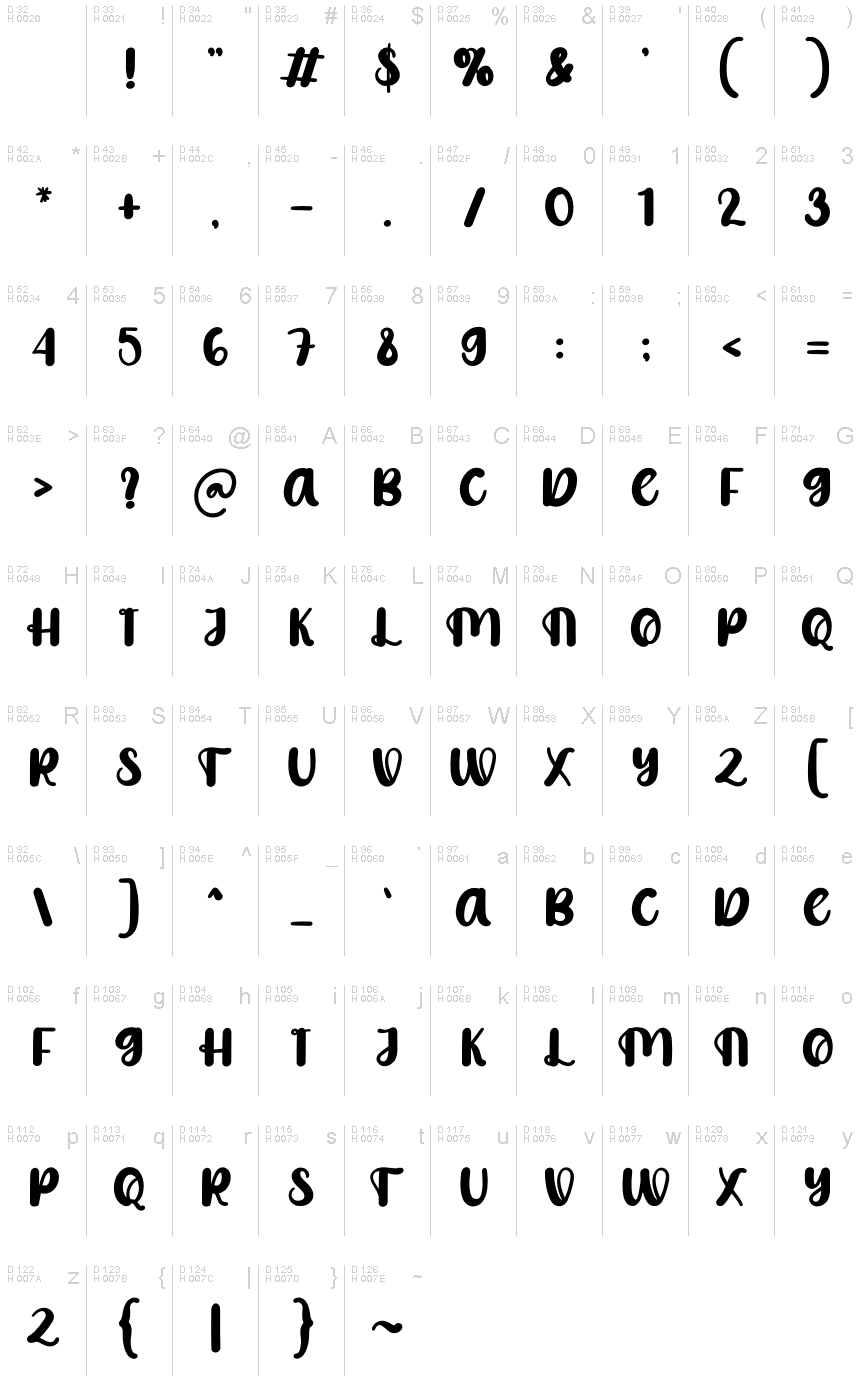
House Milk
House Milk is a captivating handwritten display font that exudes a delightful sense of sweetness and playfulness. Crafted by the talented designer Andi Moz, this bold and smooth brush script is a true delight for the eyes. The font's brushy strokes and rounded, friendly shapes create a warm, inviting aesthetic, perfect for adding a touch of whimsy to any design.
Whether you're planning a charming wedding invitation or crafting a heartfelt greeting card, House Milk's versatility shines through. Its bold and confident presence makes it an ideal choice for projects that demand a touch of personality and flair, from product packaging to social media graphics. This font's unique blend of style and approachability is sure to capture the attention of designers and audiences alike, lending a irresistible charm to any design it graces.